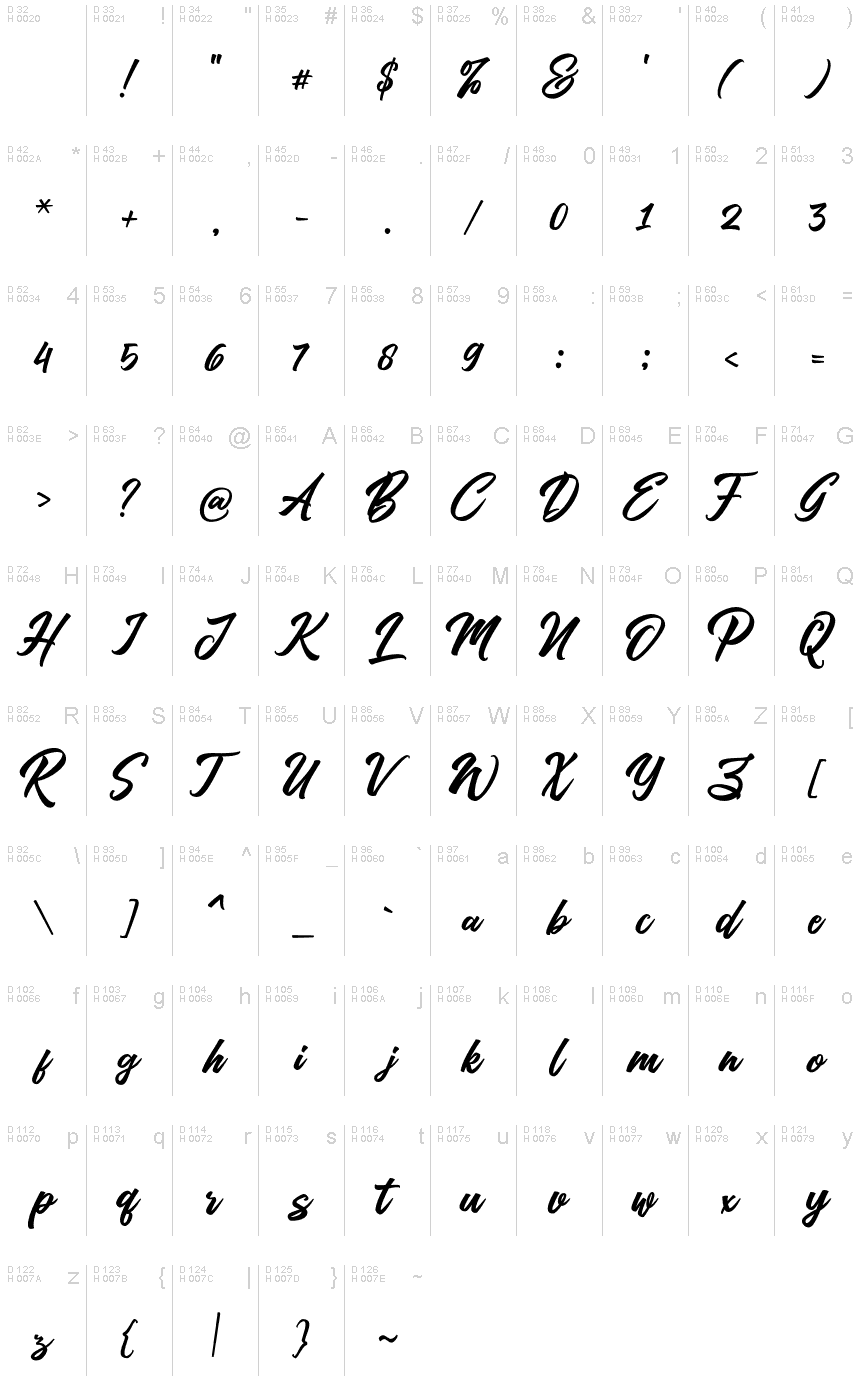
ArtukgeScript
Artukge Script, crafted by Tebaltipis Studio, is a captivating handwritten font that exudes a charming and playful vibe. Its delightful marker-style strokes bring authenticity and character to any project.
This versatile typeface is perfect for adding a personal touch to invitations, greeting cards, and crafty DIY projects. For businesses seeking a unique branding element, Artukge Script lends itself beautifully to logos and packaging designs. Its fluidity and organic nature make it an ideal choice for creating eye-catching social media graphics or enhancing blog headers.